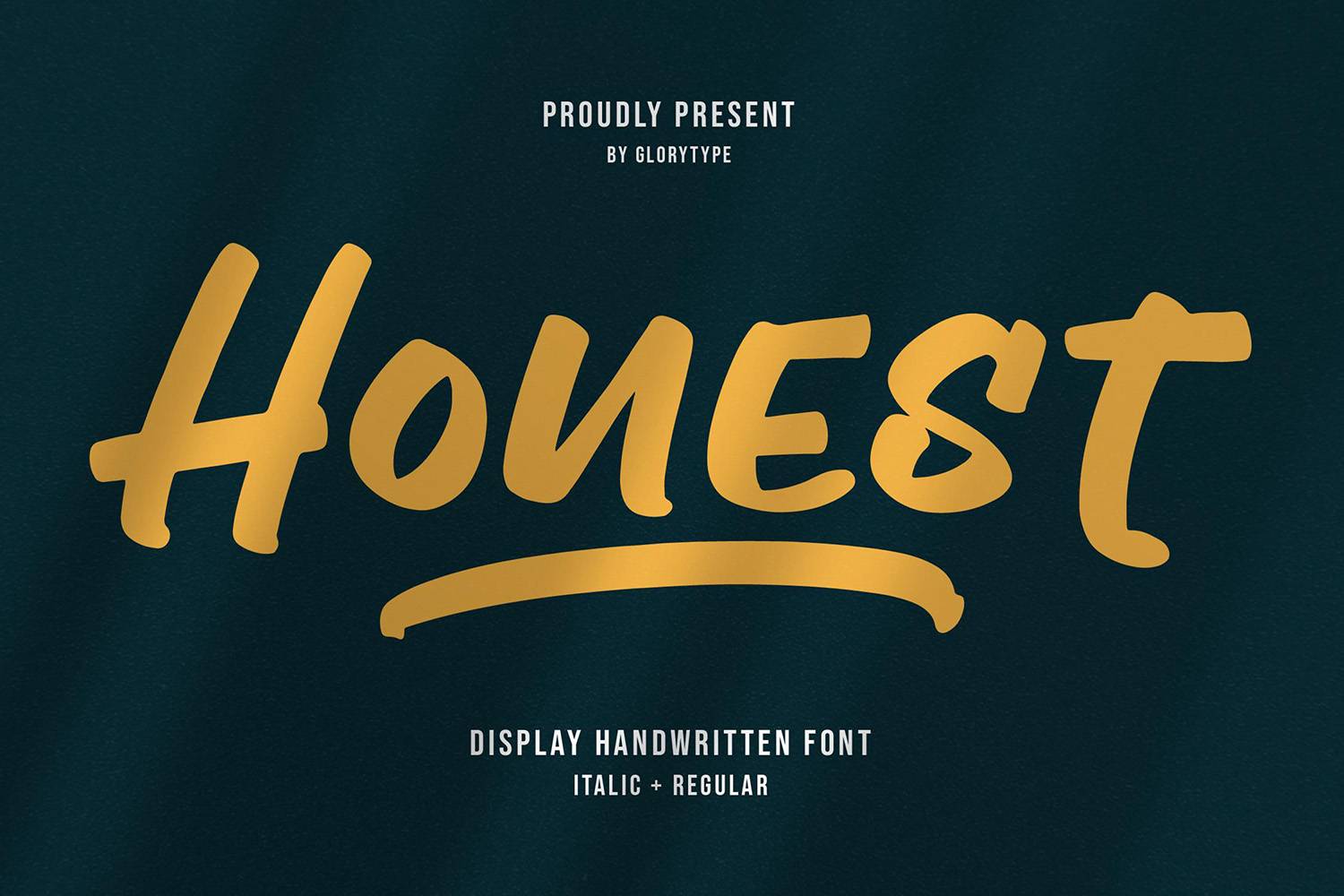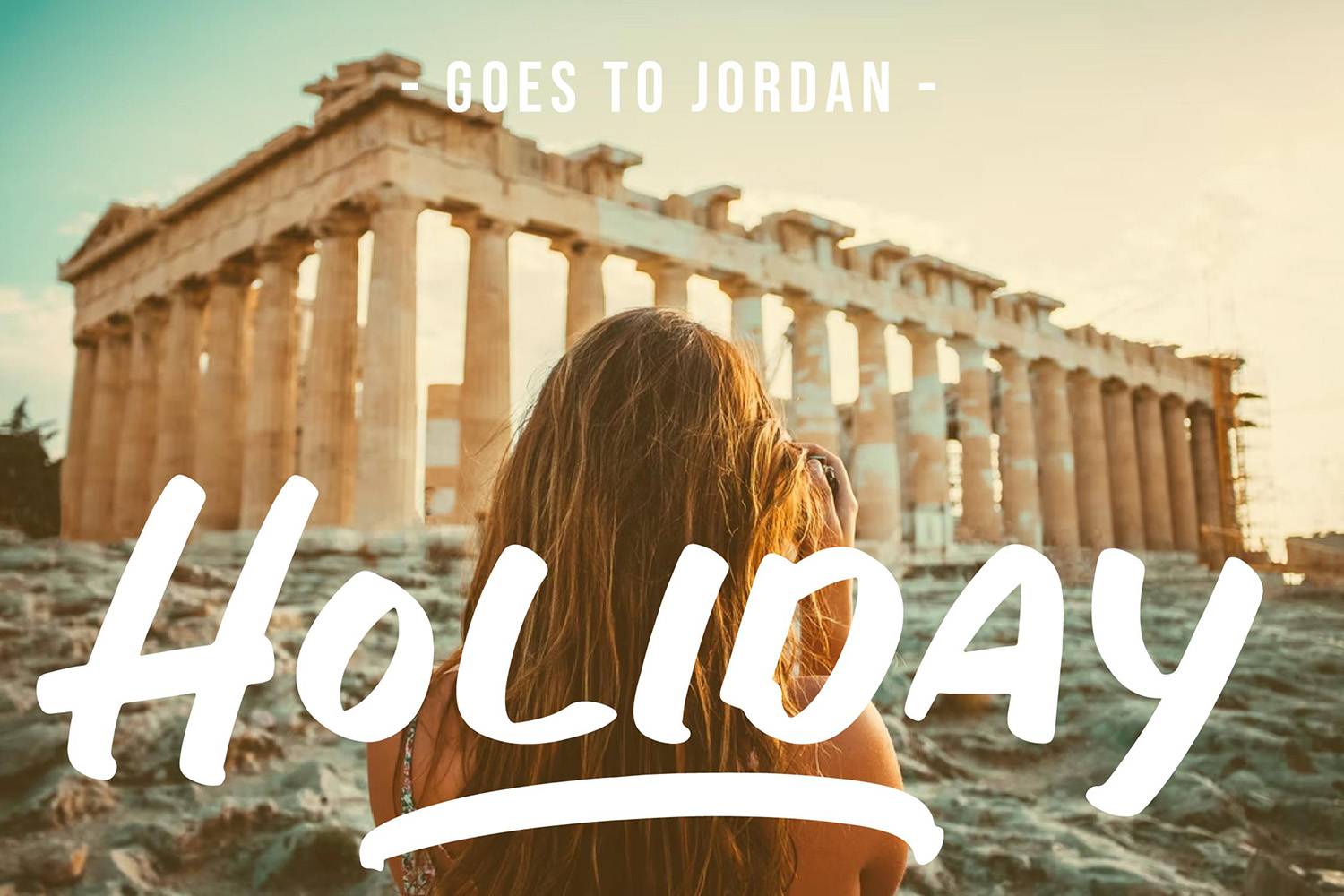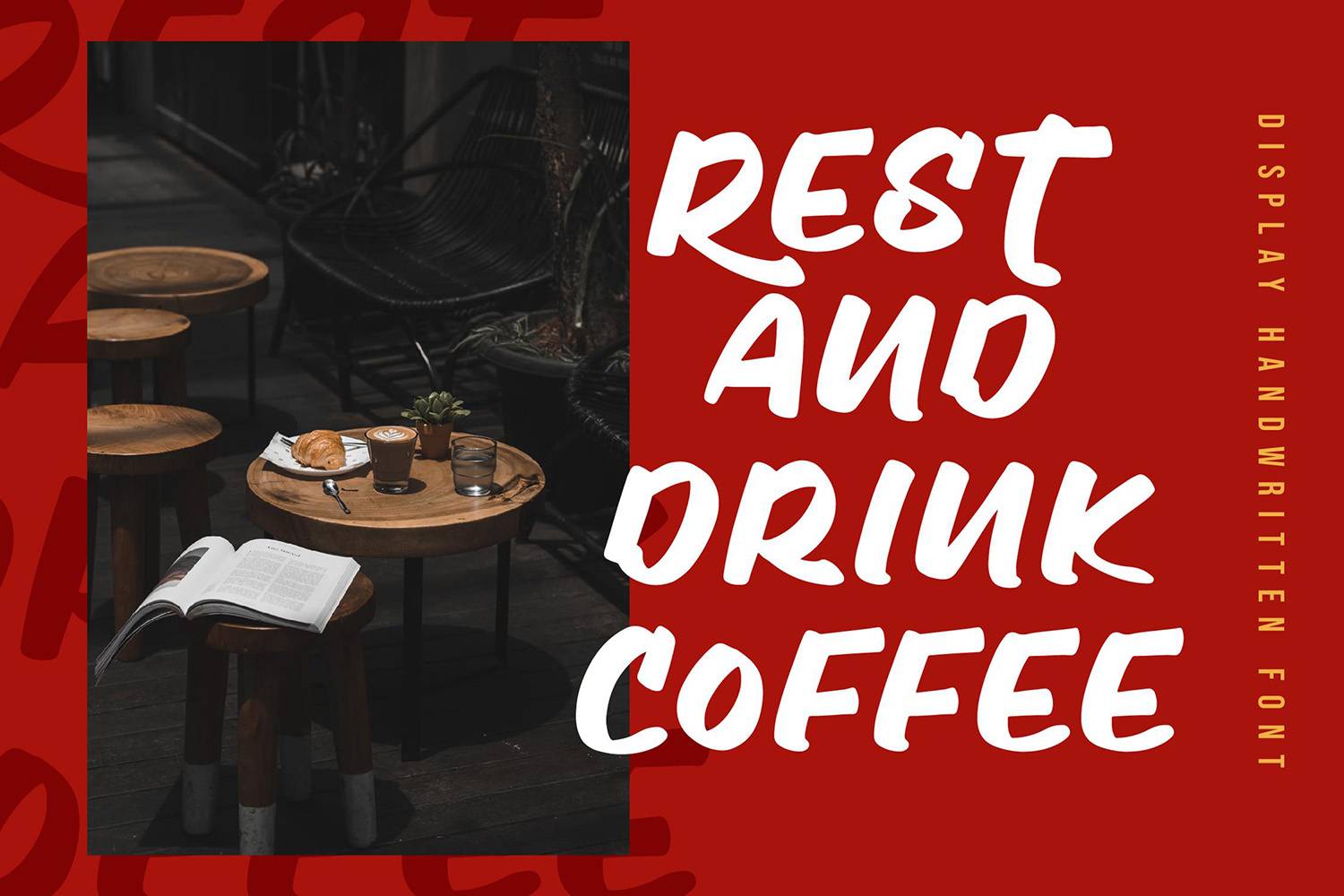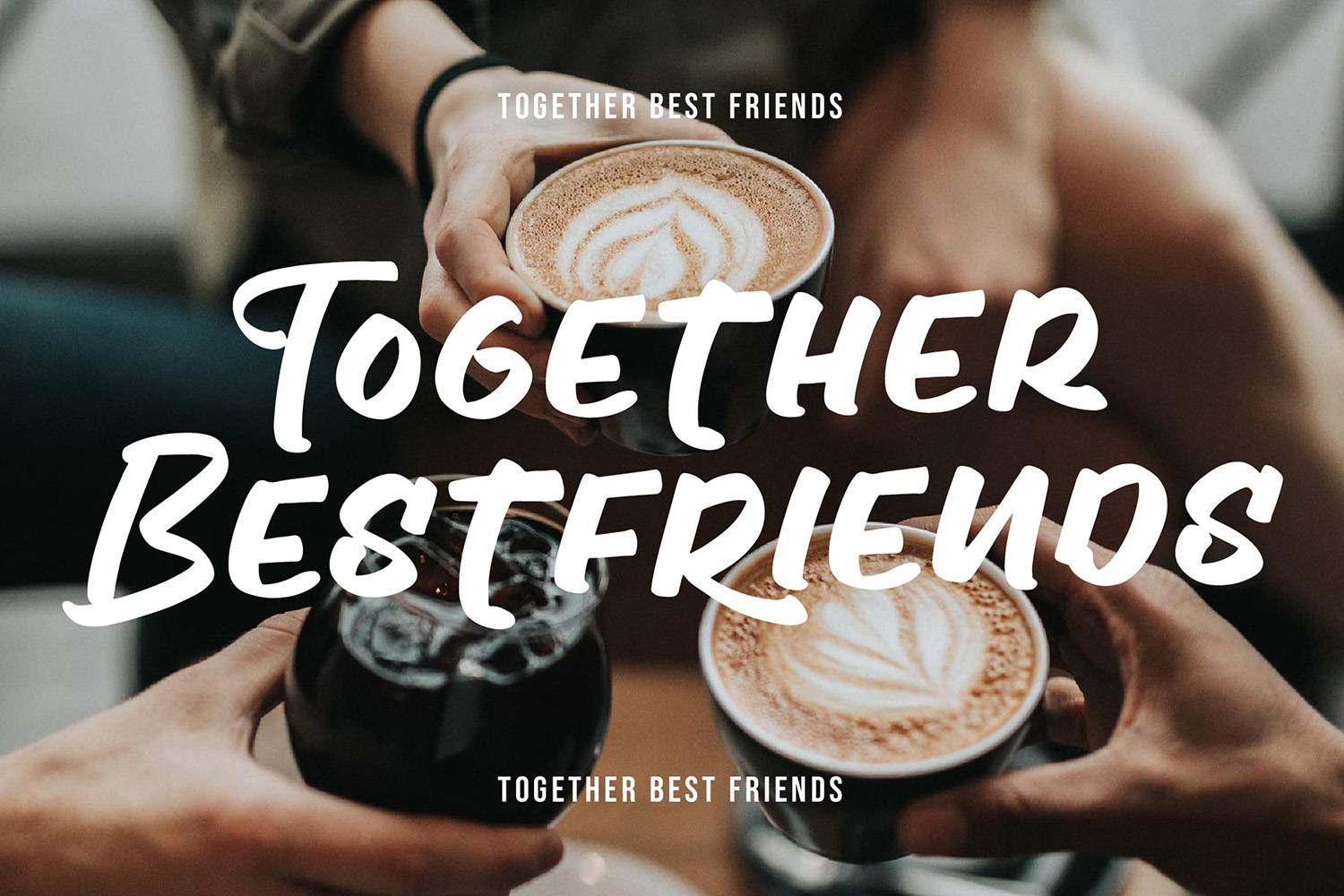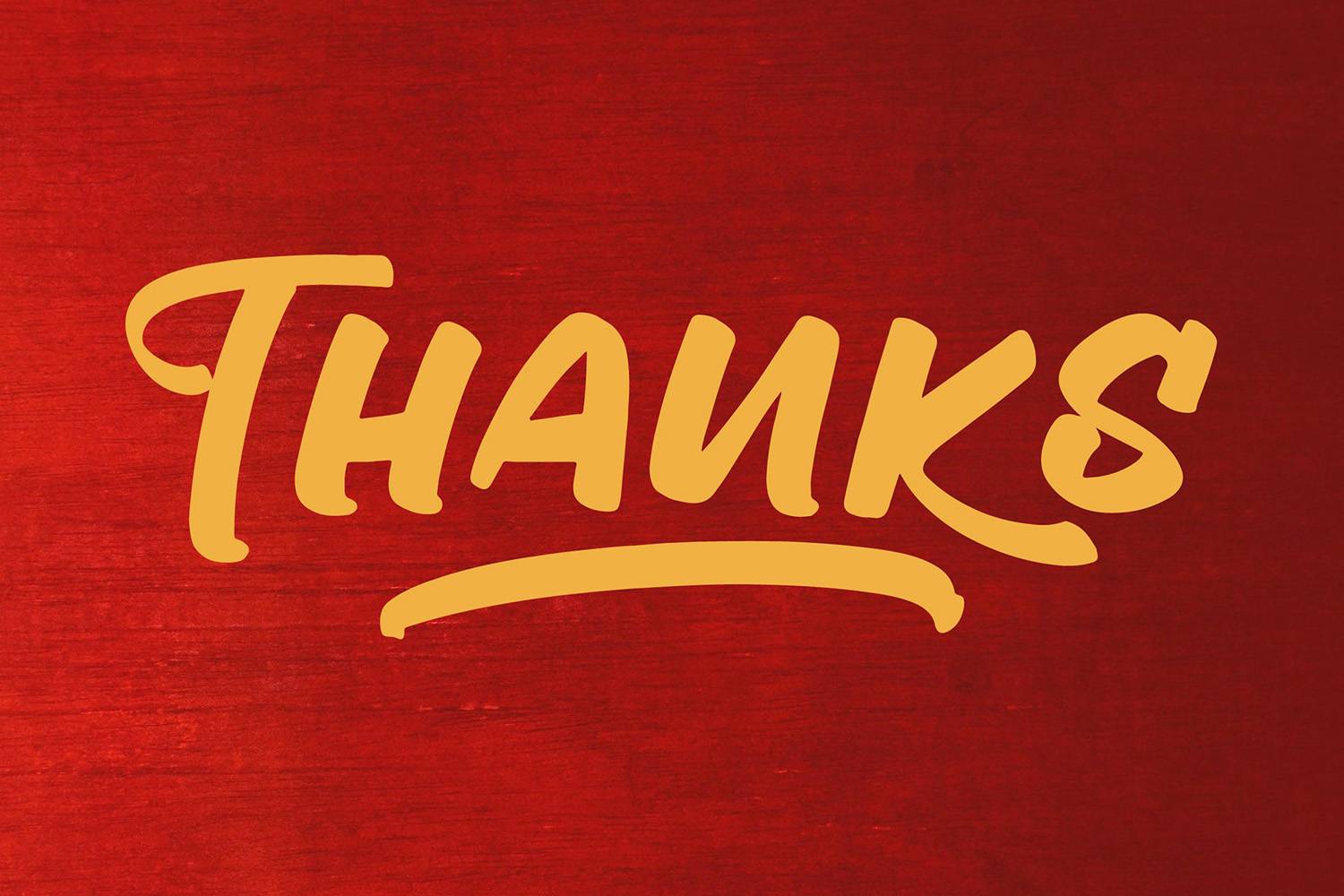
Honest Font is a lively and bold script typeface that combines a friendly handwritten style with strong, rounded strokes and a slight slant. Its energetic letterforms and high contrast give it a casual yet confident personality, making it ideal for branding, packaging, and headlines that seek a personal, approachable feel. This font works well where a vibrant and modern hand-crafted aesthetic is desired to connect warmly with audiences.
Honest Font
About Honest Font